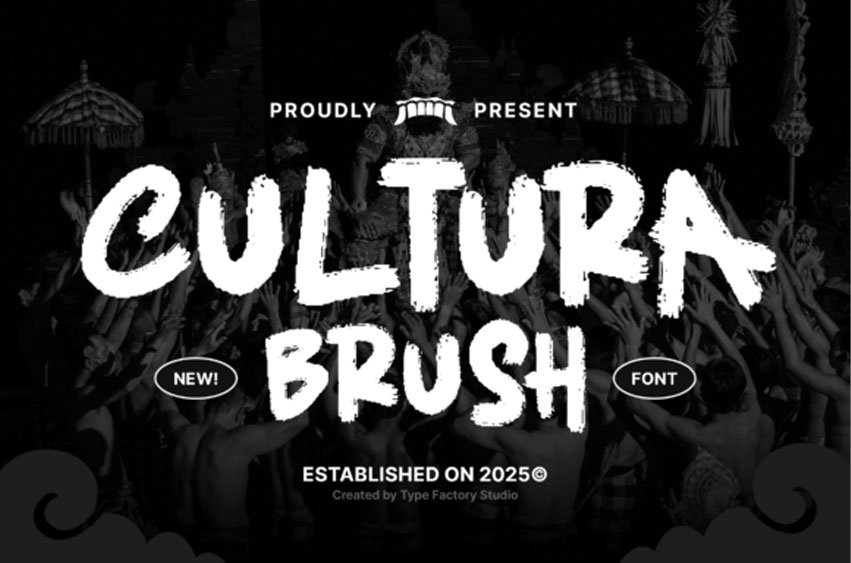
Cultura Font is a brush display typeface built with rough, textured strokes and hand-drawn character forms. The uneven edges and organic rhythm give the letters a strong visual presence, making them effective for large-scale typography.
This font is designed primarily for headlines and statement text. It works well for cultural event posters, exhibition graphics, music artwork, branding materials, merchandise design, and social media visuals that require expressive typography.
Cultura includes uppercase and lowercase characters, numerals, punctuation, ligatures, and multilingual support. The structure is optimized for impactful titles rather than long paragraph settings.